Creating street sign-inspired designs requires fonts that are not only clear and bold but also capable of grabbing attention instantly. Whether you’re designing for a community event, a local market, or just adding an urban touch to your project, the right font can set the tone and communicate your message effectively. In this article, we explore 18 must-use Canva fonts that perfectly capture the essence of street sign aesthetics. These fonts are chosen for their visibility, style, and ability to evoke the straightforward nature of road signage. Get ready to enhance your designs with these accessible and impactful choices.
1. Alegreya
Why it is a must-use Street Sign font: Its versatility and exceptional readability make it a great choice for informative street signs where clarity and an aesthetic touch are required.
2. Anton
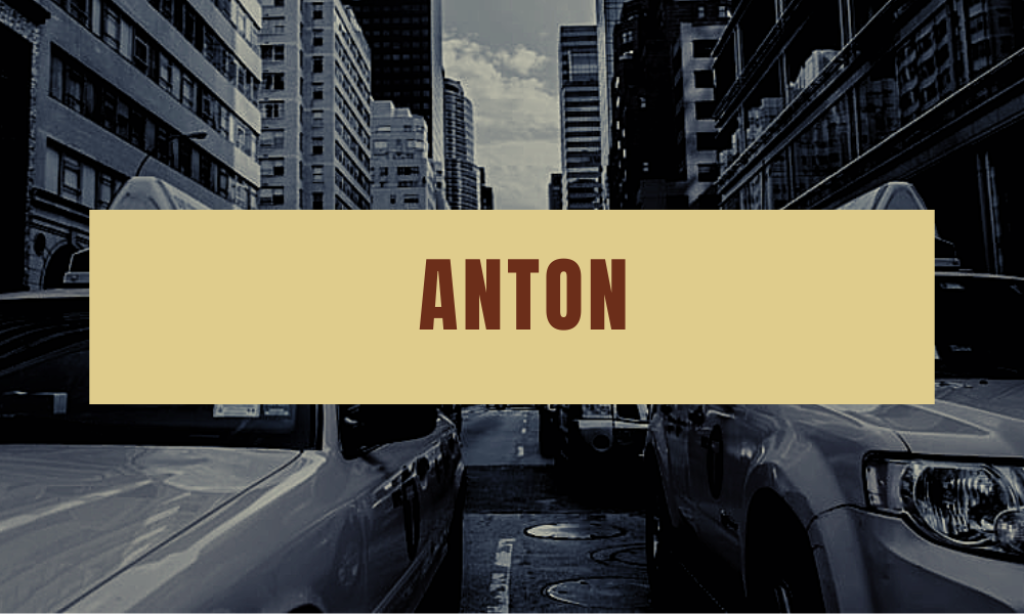
Why it is a must-use Street Sign font: Perfect for bold statements and directions on street signs, its impactful nature ensures visibility and immediacy.
3. Archivo Black.
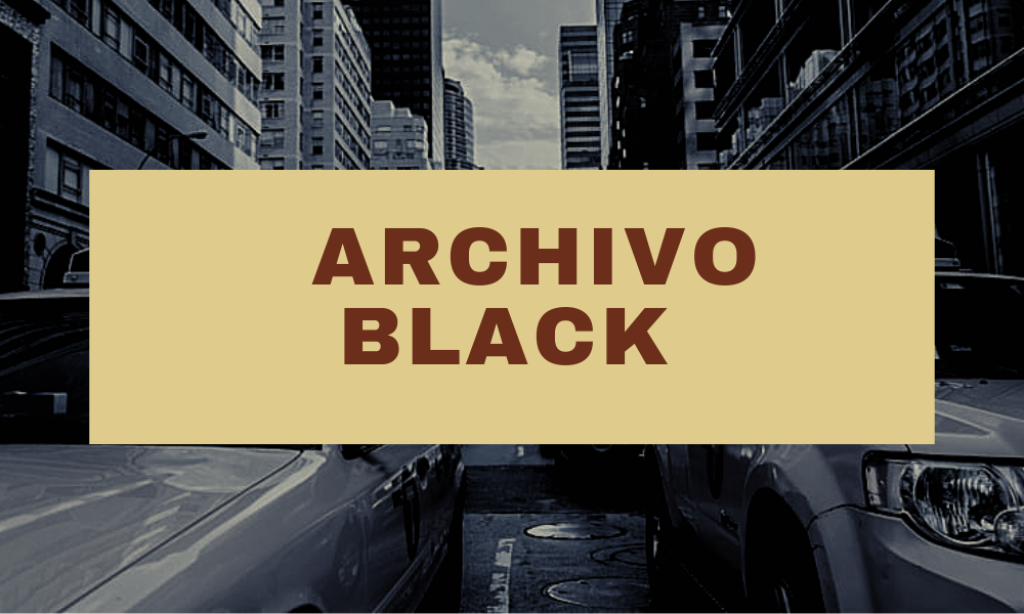
Why it is a must-use Street Sign font: Its clarity and strong presence make it suitable for any street sign that needs to stand out in both busy urban and sparse rural settings.
4. Arvo
Why it is a must-use Street Sign font: The robust nature of Arvo, especially its bold weight, makes it an excellent choice for signs that require a contemporary yet classic feel.
5. Bebas Neue
Why it is a must-use Street Sign font: Its straightforward and clear appearance makes it ideal for directional and informative street signs where simplicity and readability are key.
6. Bitter
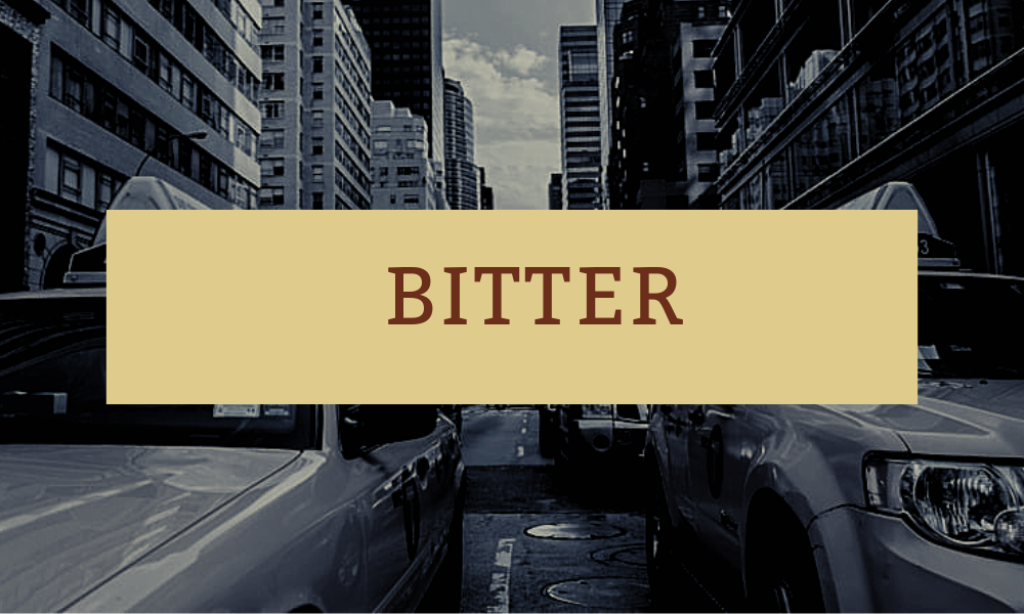
Why it is a must-use Street Sign font: This font balances readability with character, perfect for street signs that aim to convey a friendly yet formal tone.
7. Cabin
Why it is a must-use Street Sign font: With its clean and readable style, Cabin is perfect for text-heavy street signs that require both legibility and a modern aesthetic.
8. Cardo
Why it is a must-use Street Sign font: Its clear, large serifs are useful in creating street signs that look both authoritative and traditional.
9. Concert One
Why it is a must-use Street Sign font: Ideal for casual or whimsical street signs, it catches the eye while remaining approachable and easy to decipher.
10. Exo 2
Why it is a must-use Street Sign font: Its futuristic aesthetic and clarity make it a standout choice for modern urban environments or tech-themed areas.
11. Francois One
Why it is a must-use Street Sign font: Its sturdy and impactful appearance makes it excellent for clear, commanding street signs.
12. Impact
Why it is a must-use Street Sign font: It is ideal for signs needing to catch the eye quickly, such as warnings or urgent information.
13. Jura
Why it is a must-use Street Sign font: Jura’s unique look is perfect for street signs that need to stand out with a touch of modern elegance.
14. League Spartan
Why it is a must-use Street Sign font: Its strong and assertive style is perfect for signs that require immediate attention and legibility.
15. Libre Baskerville
Why it is a must-use Street Sign font: Its high readability and elegant design make it suitable for more formal or historical street signs.
16. Oswald
Why it is a must-use Street Sign font: Oswald’s adaptation to digital and print formats makes it incredibly versatile for any street sign, ensuring clear visibility.
17. Saira Condensed
Why it is a must-use Street Sign font: Its space-saving properties make it ideal for street signs where space is limited but information needs to be clear.
18. Titillium Web
Why it is a must-use Street Sign font: Its high legibility and modern style ensure that Titillium Web is perfect for clear, easy-to-read street signs in a contemporary setting.